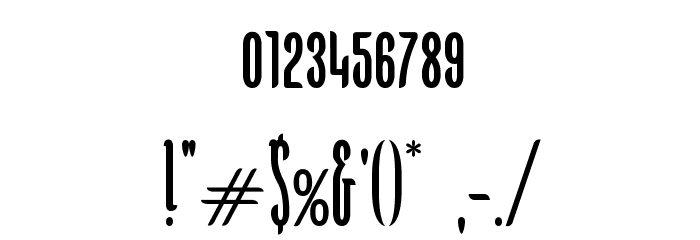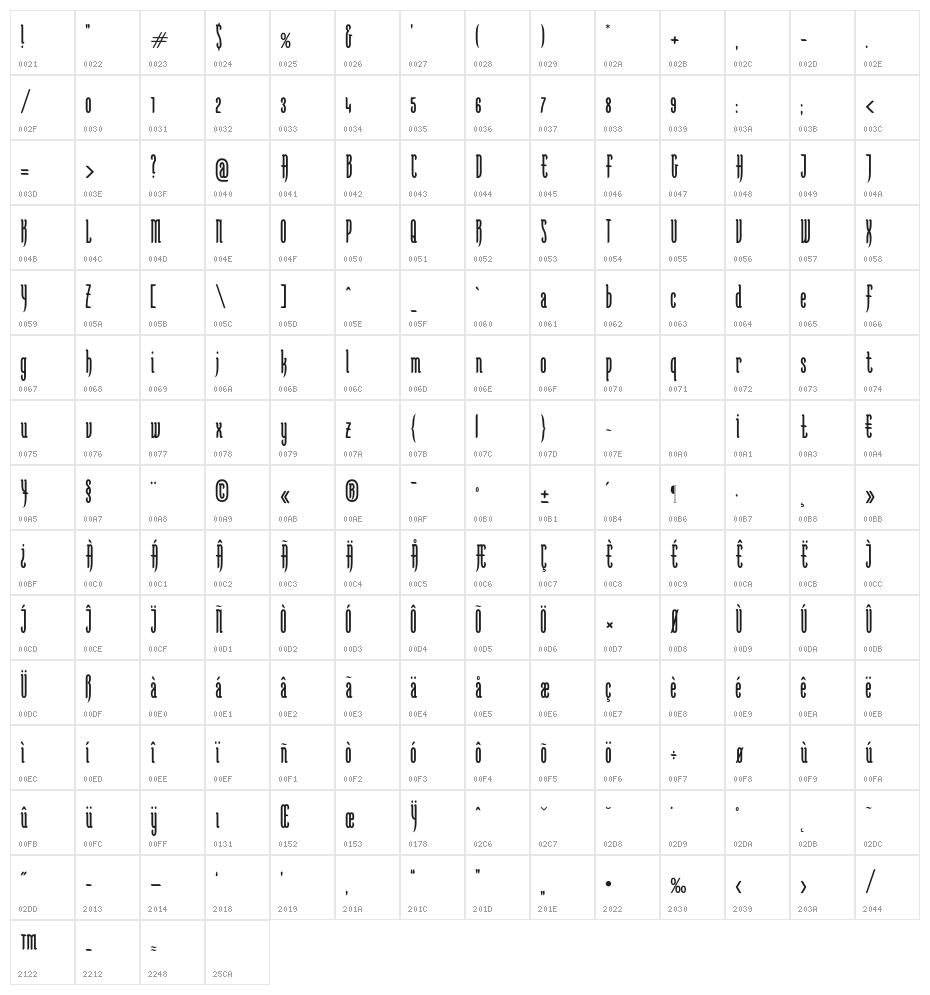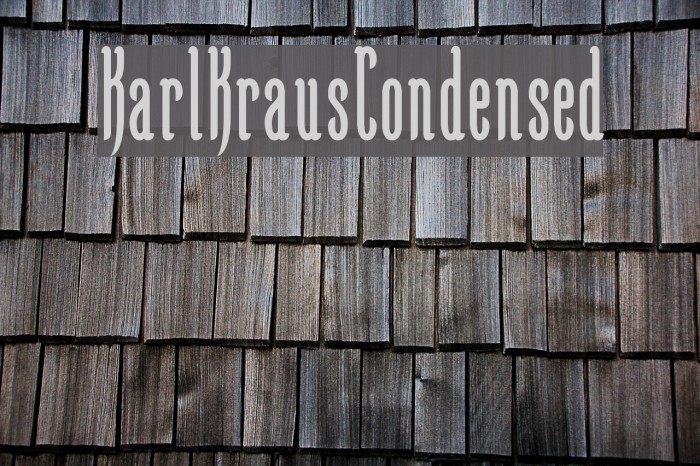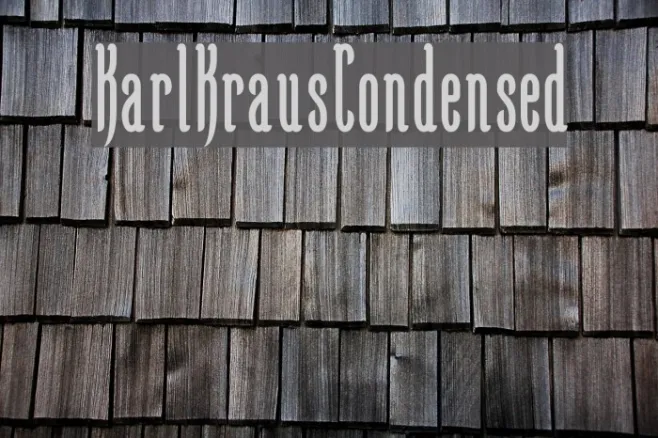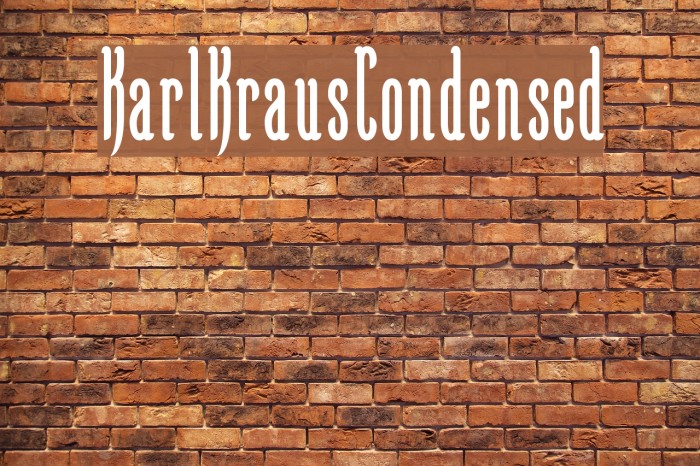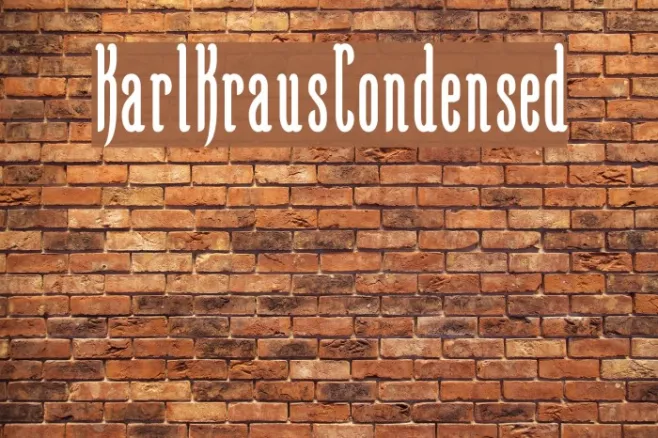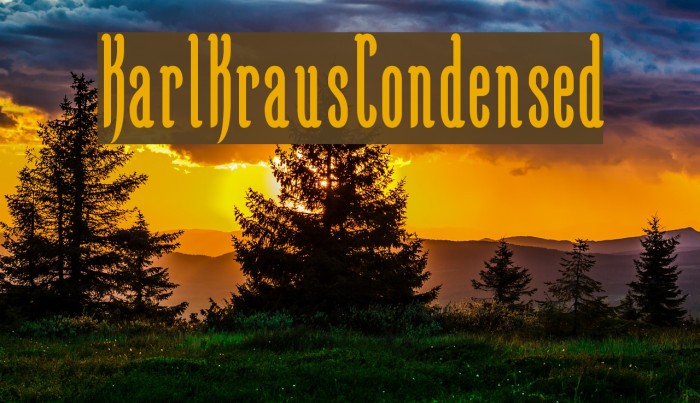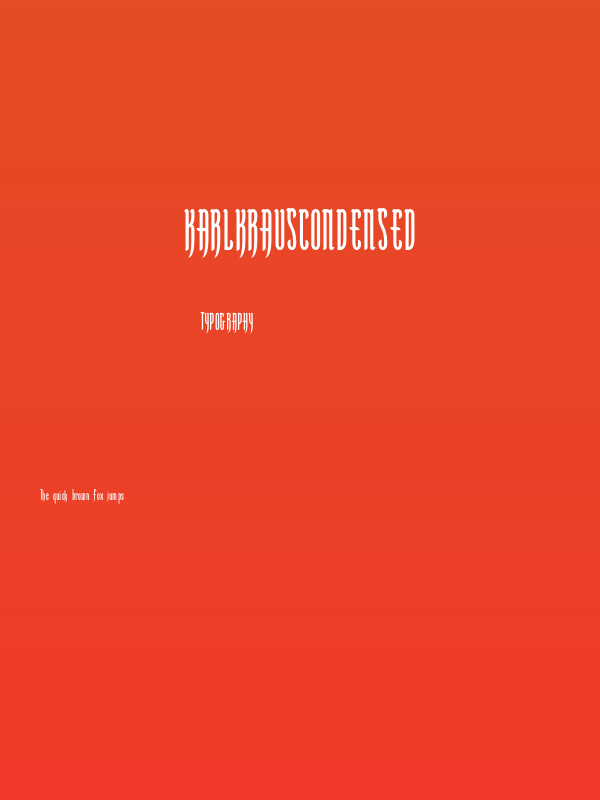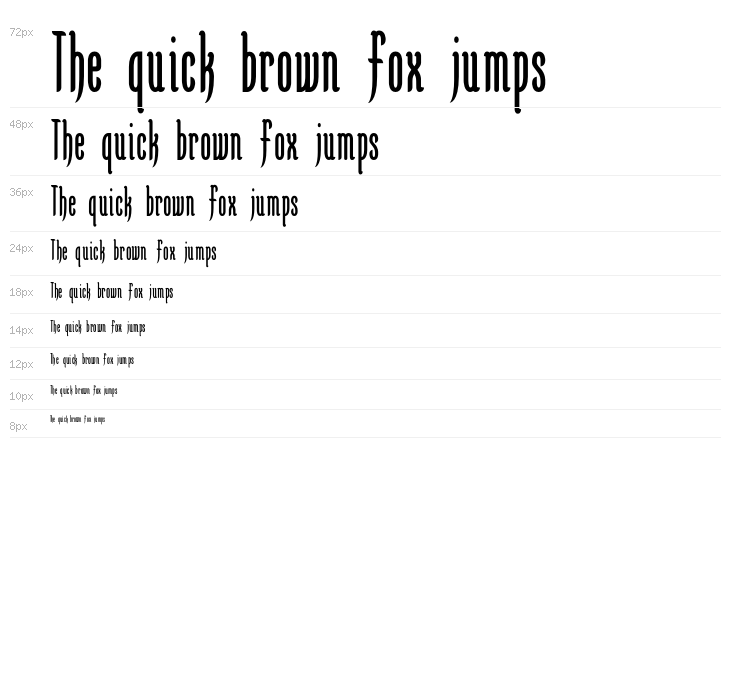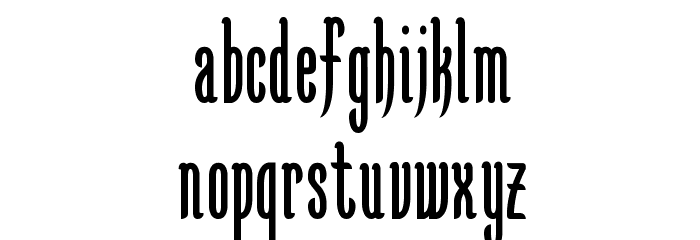
KarlKrausCondensed Font
KarlKrausCondensed Description
This font features a distinctive condensed style with tall, narrow characters that convey a sense of elegance and sophistication. The uppercase letters are particularly elongated, with a consistent vertical emphasis that adds to the font's striking appearance. The lowercase letters maintain this verticality, creating a cohesive look across the alphabet. The numerals are similarly narrow, ensuring uniformity throughout the typeface. Special characters are designed to match the overall aesthetic, with a unique flair that complements the font's refined style. The strokes are smooth and consistent, with a medium contrast that enhances readability while maintaining the decorative appeal.
| Overall Style | Elegant, Sophisticated, Decorative |
| Proposed Projects | Ideal for projects that require a sophisticated and stylish look, such as luxury branding, fashion magazines, or elegant invitations. |